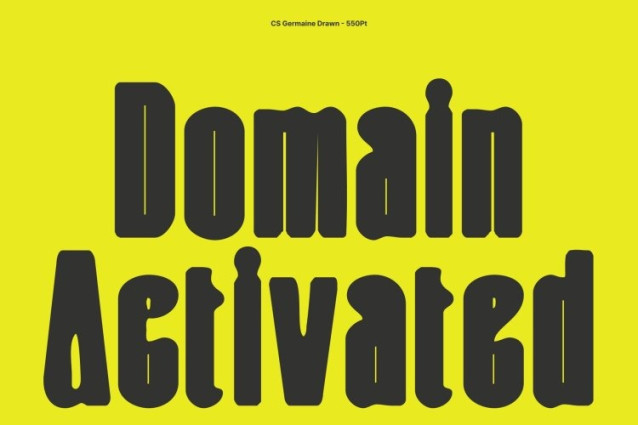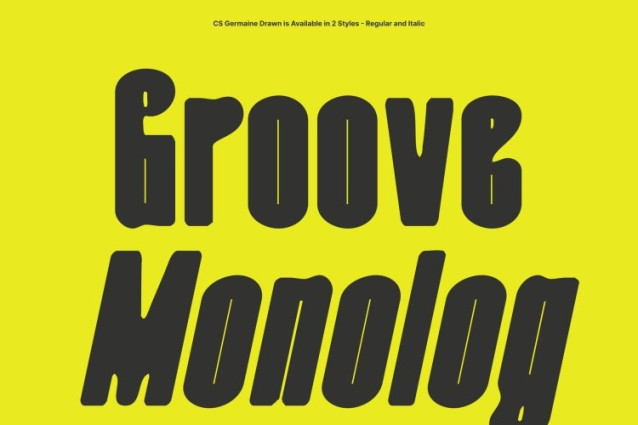
CS Germaine Drawn Font
CS Germaine Drawn Font This is a modern condensed display sans serif font designed for maximum impact in tight spaces. Its bold weight and compact letterforms deliver striking visual presence while maintaining readability. The added hand-drawn texture introduces an artistic, handcrafted quality, making each character feel dynamic and expressive.
Contemporary, Clean, and Confident
With clean lines, geometric balance, and precise proportions, exudes a professional, modern vibe. The condensed structure enhances focus and rhythm, creating a confident and polished appearance. The drawn details add subtle irregularities and organic charm, softening the strict geometry and giving the font a lively, approachable energy without compromising its boldness.
Versatile for Bold and Polished Branding
This font adapts seamlessly to various design projects, from editorial layouts and startup branding to high-impact posters and digital campaigns. Its proportional balance and expressive texture make it ideal for eye-catching displays, while its condensed form allows for effective use of limited space. The combination of structure and handcrafted detail ensures your typography stands out with strength and character.
Ideal for Eye-Catching Visuals with Professional Flair
From print to digital media, delivers clarity, authority, and artistic presence. Its bold, condensed form, combined with hand-drawn texture, makes it perfect for designers seeking a professional yet distinctive font that captures attention and leaves a lasting impression.